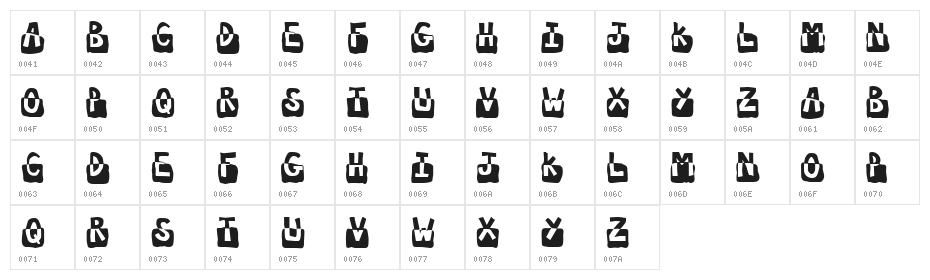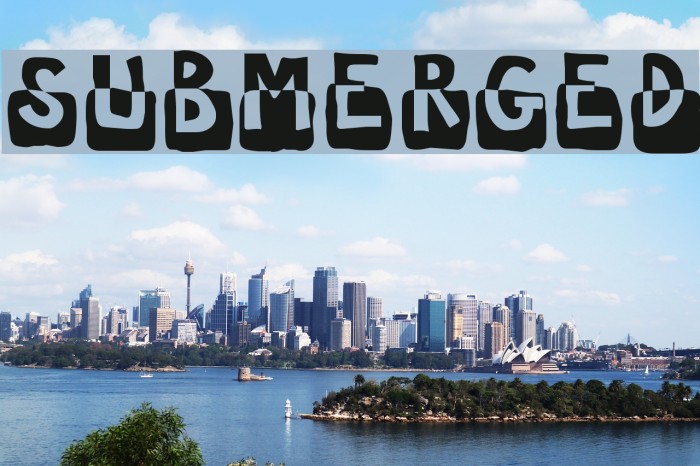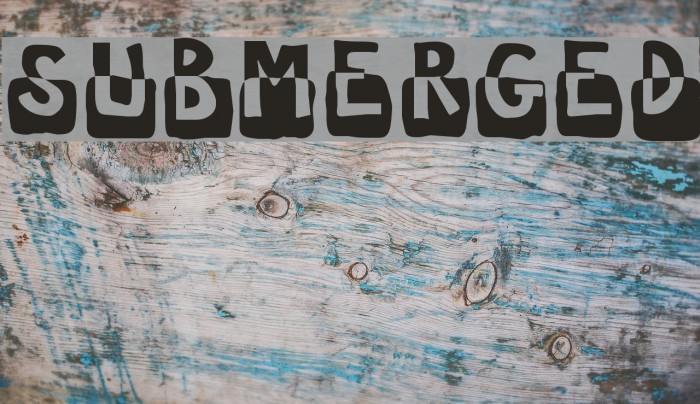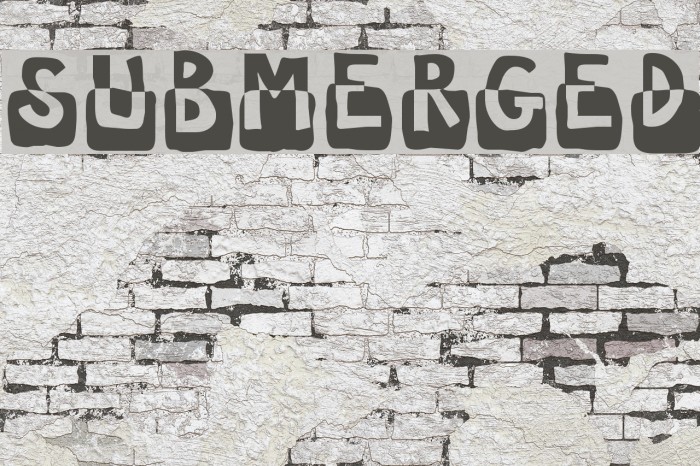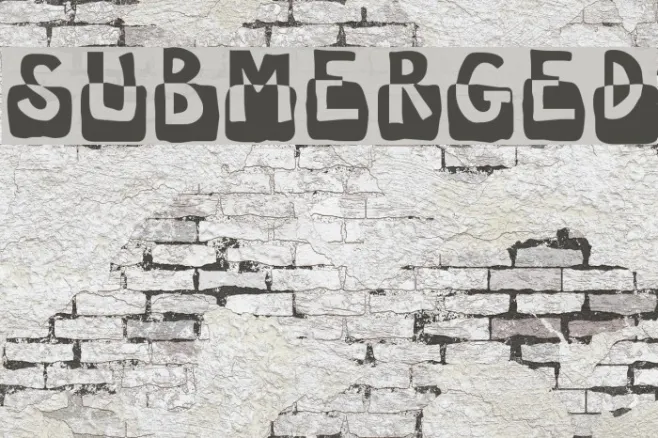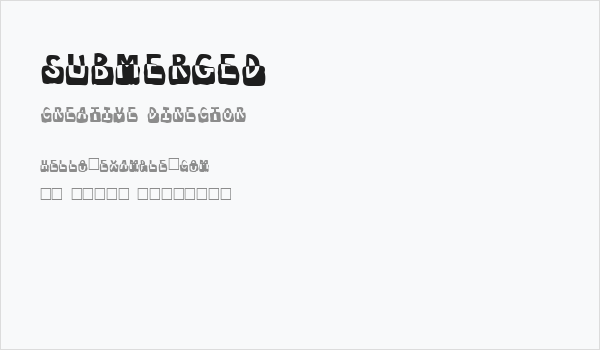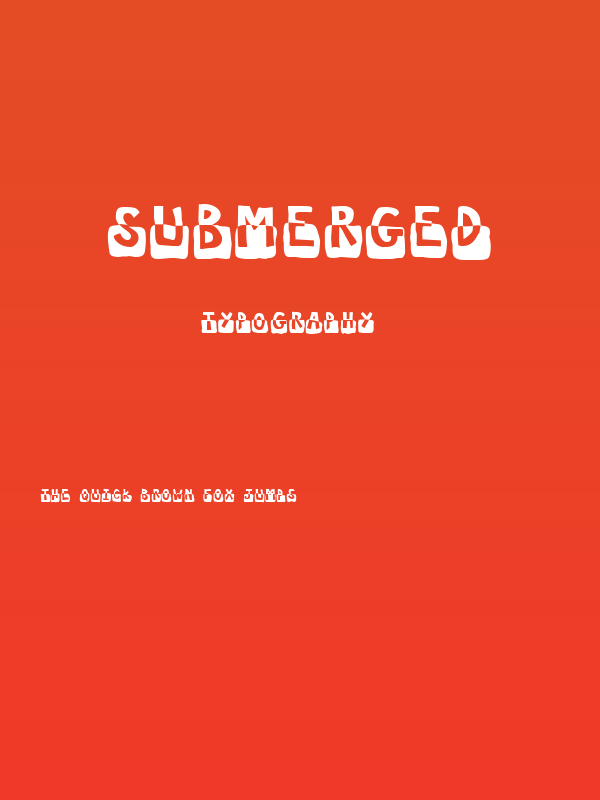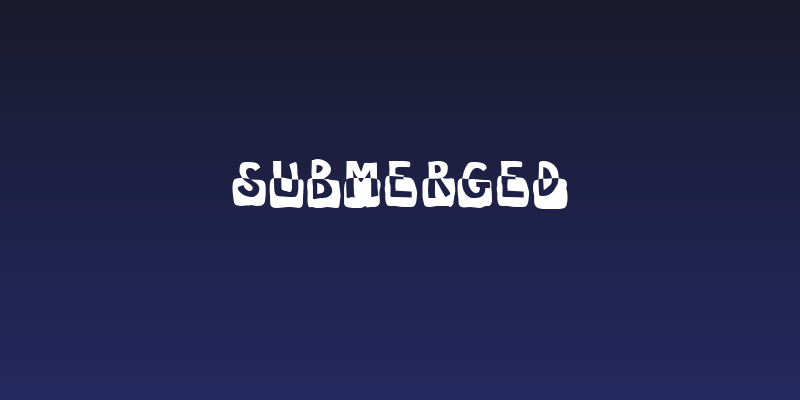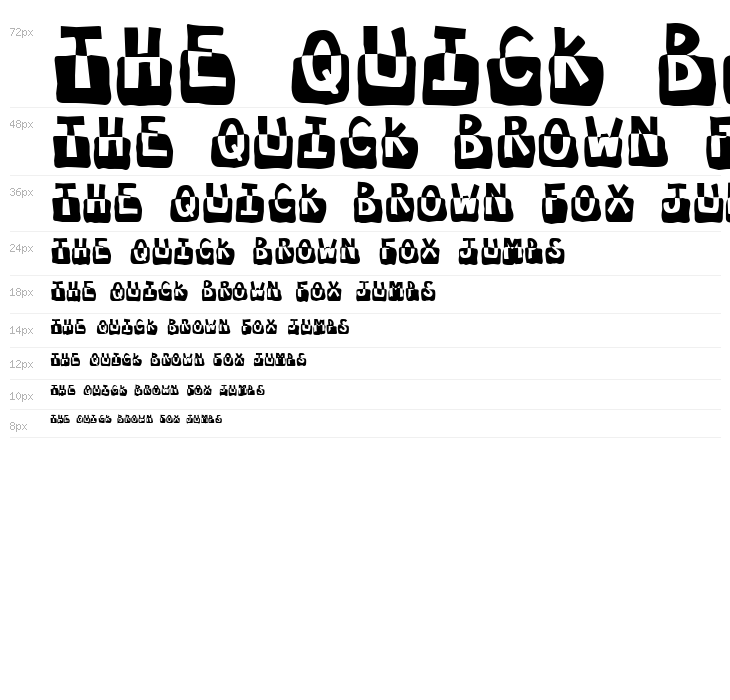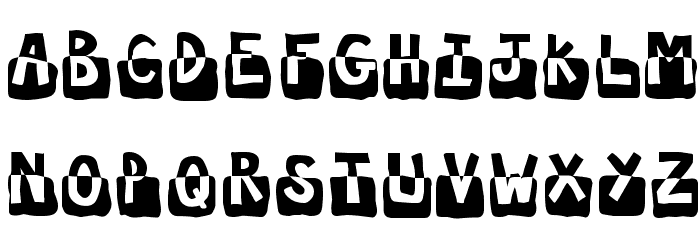
Submerged Font
Submerged Description
This font features a unique and playful design, with each character appearing as if it is partially submerged in a bold, black shape. The uppercase letters are distinct, with a strong emphasis on geometric forms and sharp angles, creating a dynamic and eye-catching appearance. The characters are bold and have a substantial weight, making them stand out prominently. The overall style is decorative and modern, suitable for creative and artistic projects. The font's design suggests a sense of movement and fluidity, as if the letters are emerging from or sinking into a solid base.
| Proposed Projects | Ideal for posters, album covers, branding for creative industries, or any project needing a bold, artistic touch. |